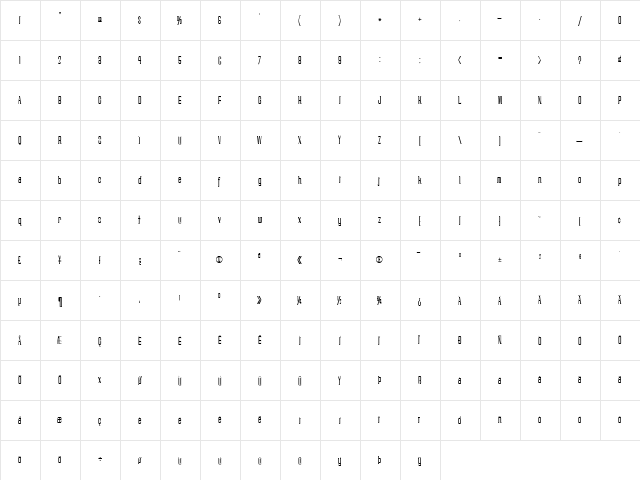
L Regular
L is a composed and adaptable typeface that performs quietly and consistently across a wide range of design contexts.
Pro Tip: Use L in both headline and body roles to test its range before committing to a single application.